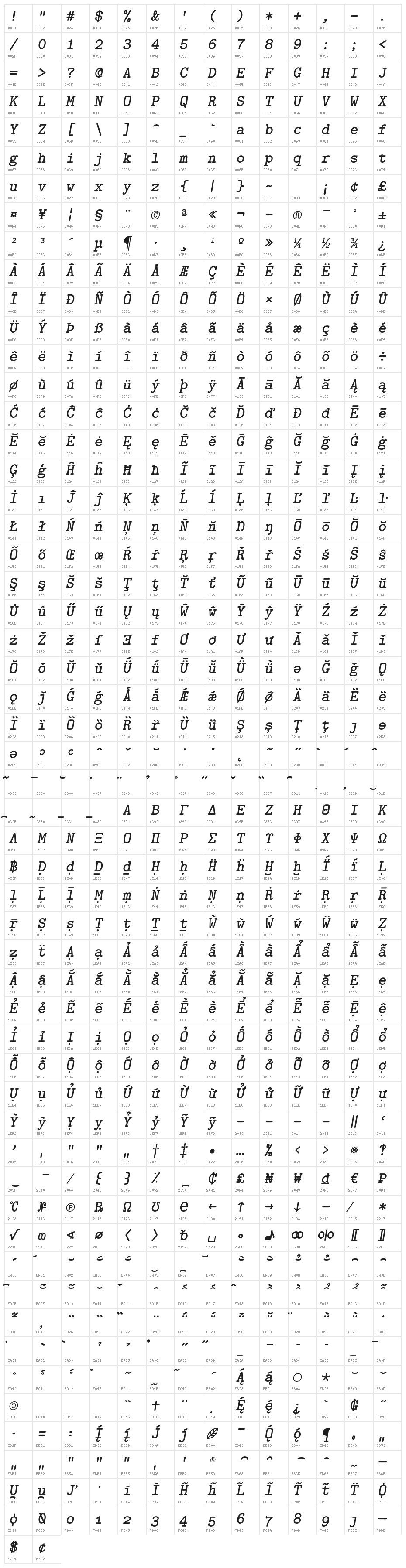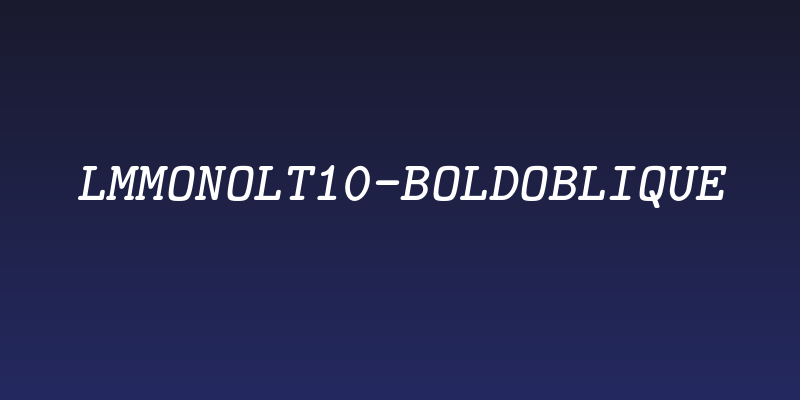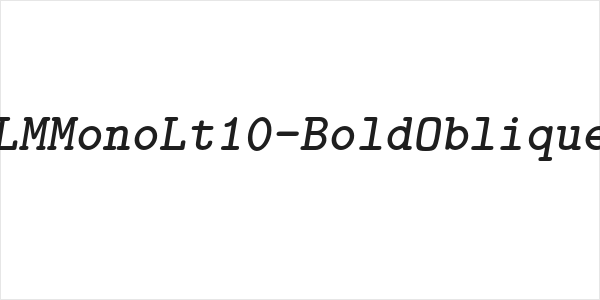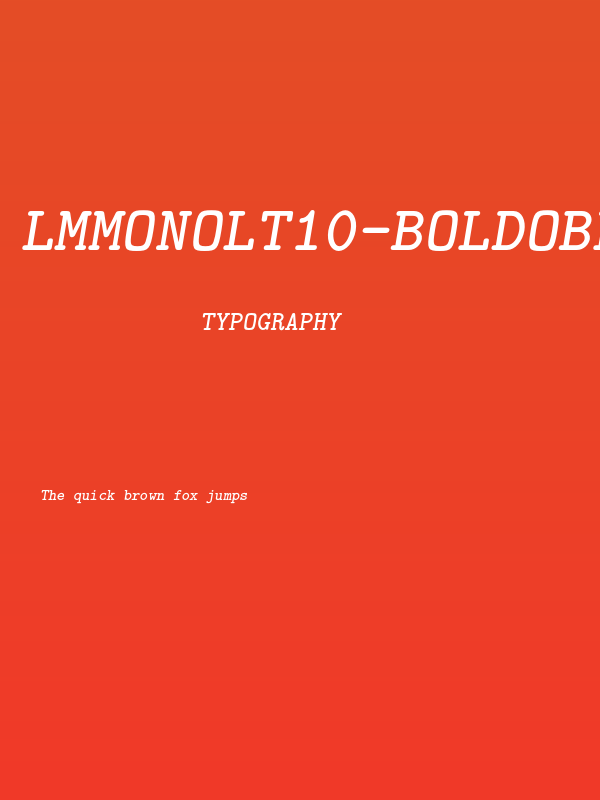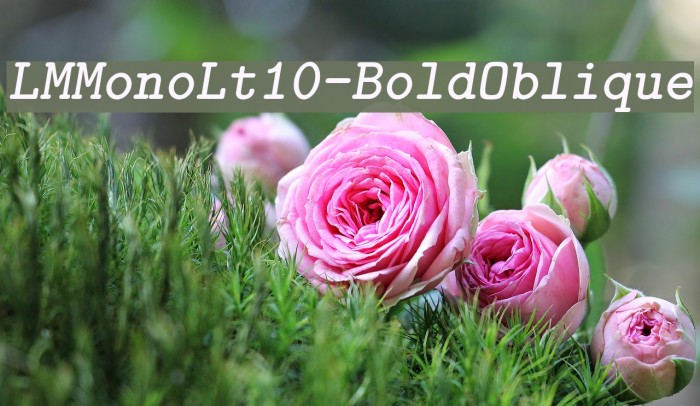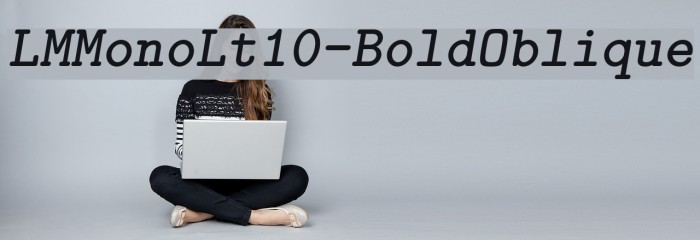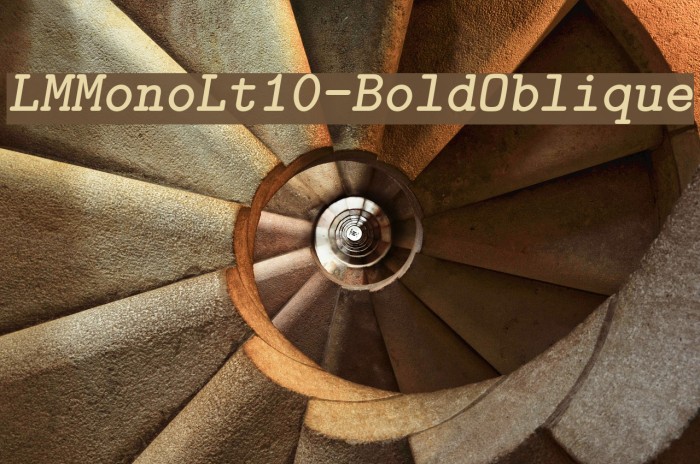
LMMonoLt10-BoldOblique Font
LMMonoLt10-BoldOblique Description
This font exhibits a monospaced style with a bold and oblique appearance, giving it a distinctive slant that adds dynamism to the text. The characters are evenly spaced, maintaining a uniform width that is characteristic of monospaced fonts. The bold weight enhances the visibility and impact of the text, making it suitable for emphasis. The oblique nature of the font provides a sense of motion and modernity, while the overall design remains clean and legible. The font includes a full set of uppercase and lowercase letters, numerals, and a variety of special characters, ensuring versatility in usage.
| Use Case | Coding, Technical documentation, Emphasis in text |
| Proposed Projects | Ideal for coding environments, technical documentation, and any project requiring clear, uniform text presentation. |